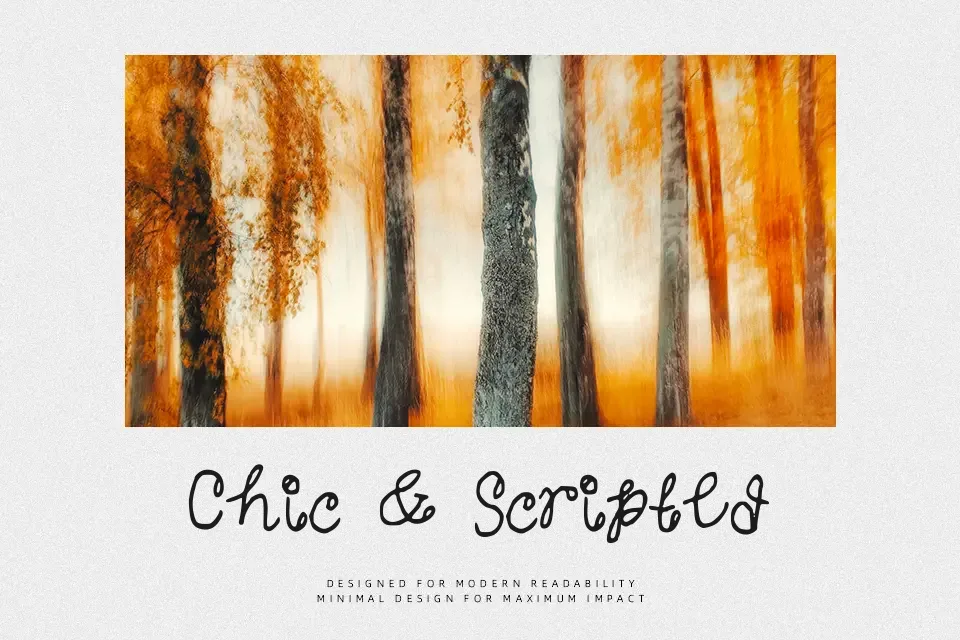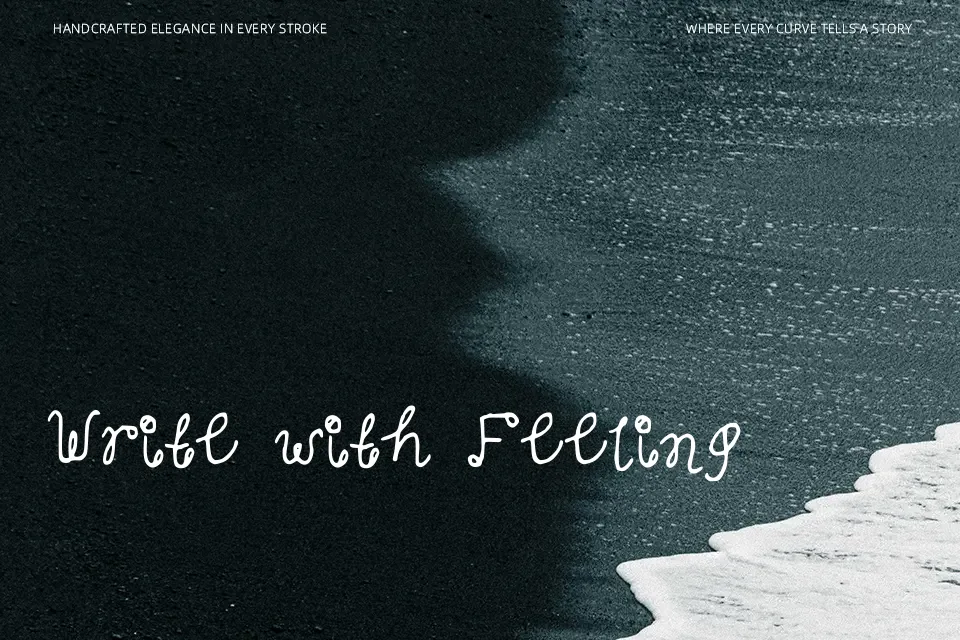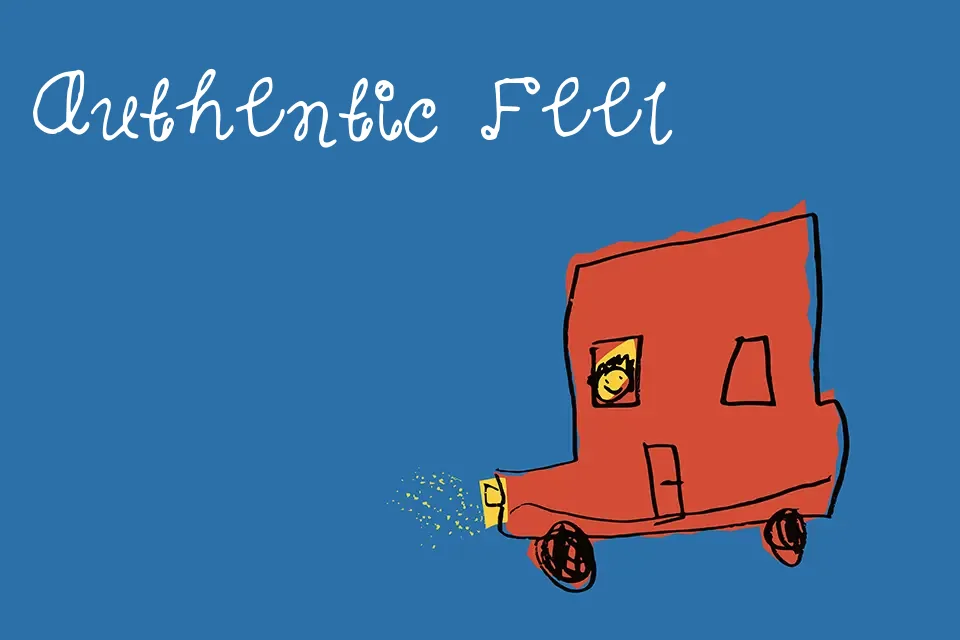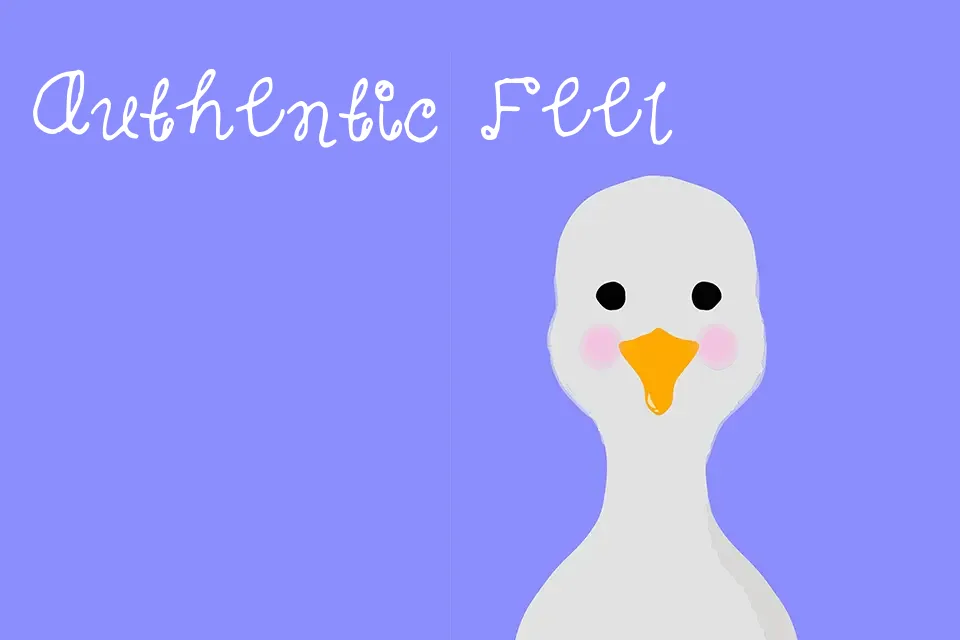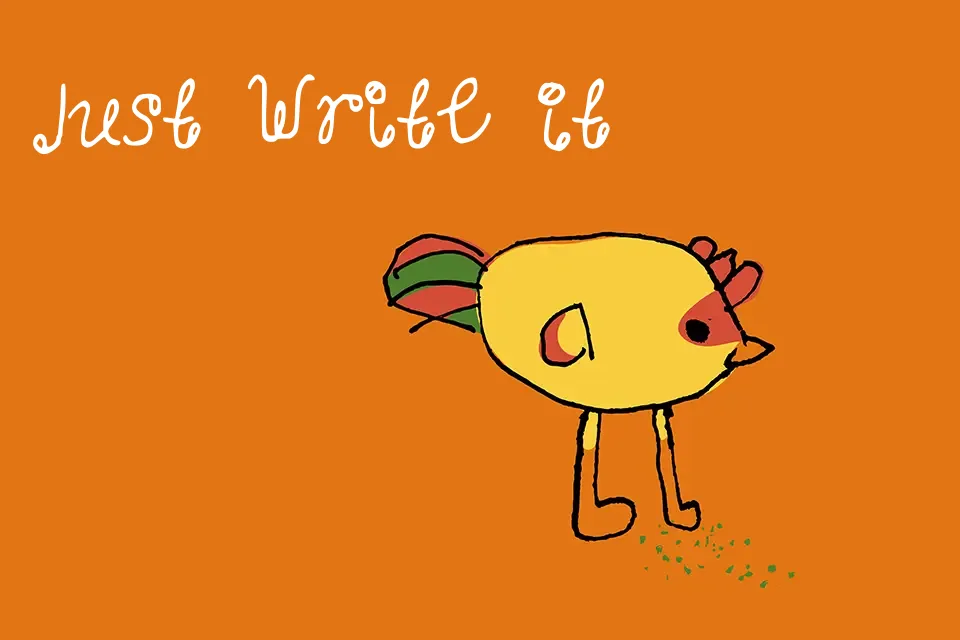
Sugar Candy Font
Designed by Chloe W.
Sugar Candy Font uses curving, connected-looking forms and varied letter shapes to create a loose decorative display rhythm. Its strokes appear smooth and moderately weighted, while the rounded curves and uneven proportions give short words a casual, playful presence. Spacing works best when the type is given room in larger settings, where the individual flourishes are easier to distinguish. It fits invitations, small branding marks, and celebratory graphics rather than information-heavy layouts. The letterforms are more effective as a visual accent than as a reading face, since their ornate shapes can slow recognition in small sizes or long passages.
Best For: party invitations,children’s product packaging,playful poster headlines,casual logo designs
Not Ideal For: long paragraph text,small interface labels,corporate reports,technical manuals
Perfect for headline, invitation, and logo, with a creative and decorative style.